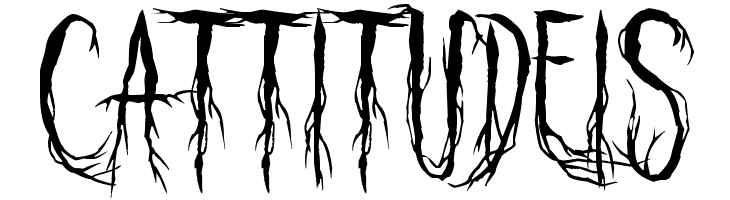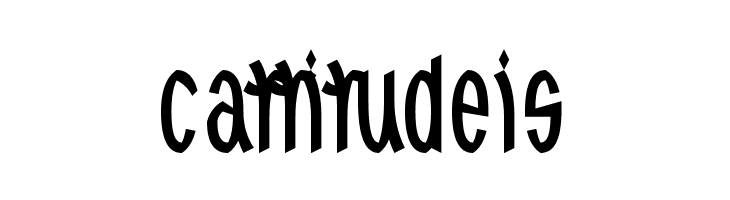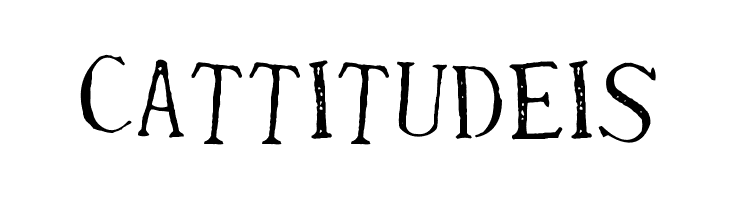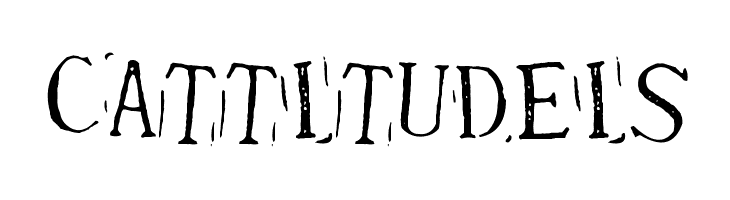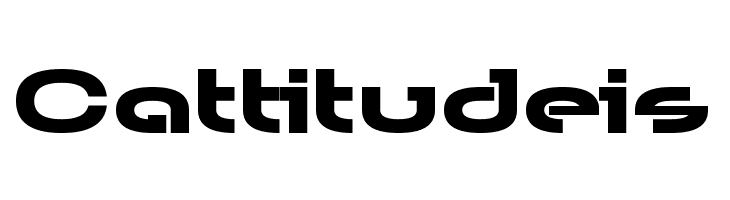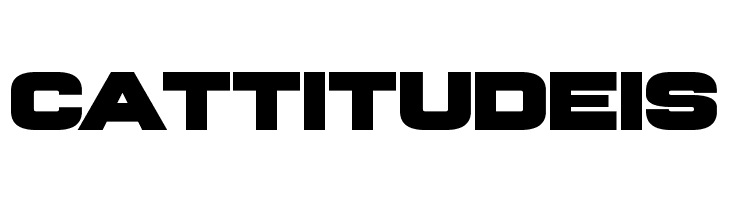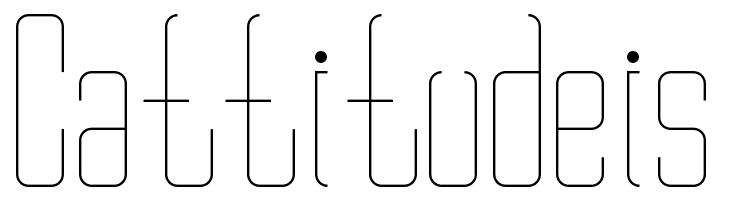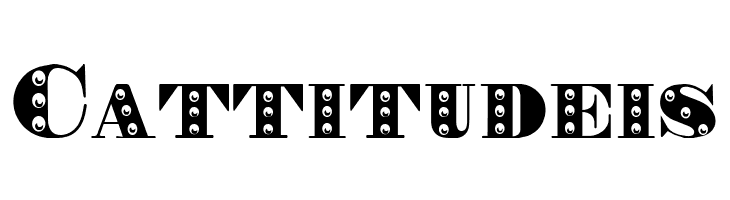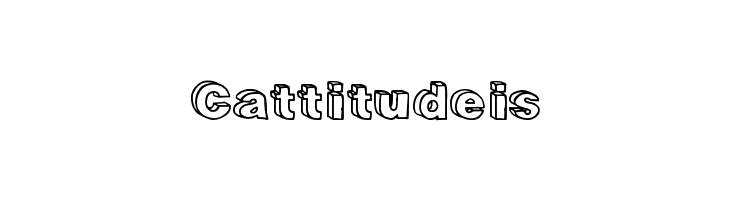
A bold, playful font with a hand-drawn, cursive style.
A bold, dynamic serif font with high contrast and a modern twist.
A bold, futuristic font with geometric shapes and sharp angles.
A dynamic and elegant script font with flowing, cursive letterforms.
A fluid and elegant script font with a modern yet classic appeal.
A geometric and angular font with a futuristic and edgy design.
A hand-drawn, textured font with a rustic and organic feel.
A distressed, grunge-style font with uneven edges and a hand-drawn look.
A bold, handwritten-style font with fluid, dynamic strokes.
An elegant script font with decorative swirls and a whimsical style.
A bold, high-contrast font with a modern and impactful style.
A haunting, branch-like font with jagged, eerie strokes.
A jagged, gothic-inspired font with elongated, sharp characters.
An elegant and flowing script font with ornate, decorative letterforms.
A bold, geometric font with a modern and impactful design.
A bold, geometric font with futuristic circular cutouts.
An ornate and decorative script font with elaborate swashes and flowing characters.
An ornate and decorative script font with elegant curves and flourishes.
A playful, bold script font with rounded edges and smooth curves.
A bold, italic script font with a modern, handwritten style.
A bold, rounded font with a playful and modern style.
A smooth, flowing script font with an elegant, dynamic appearance.
A light, modern script font with elegant curves and clean lines.
A playful, handwritten-style font with rounded, smooth characters.
A modern, geometric sans-serif font with consistent line weights and a minimalist design.
A bold, playful font with a 3D outlined effect, perfect for lively designs.
A bold, dynamic font with elongated, slightly curved characters and a modern gothic flair.
A bold, futuristic font with geometric and angular design.